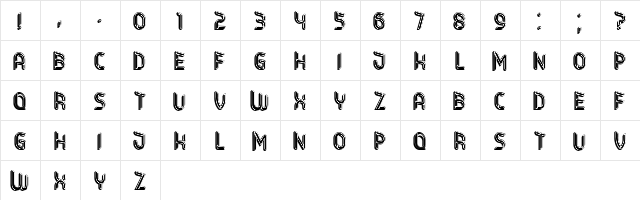
Gwara Regular
Design Context for Gwara Typeface
Gwara is a composed and adaptable typeface that performs quietly and consistently across a wide range of design contexts.